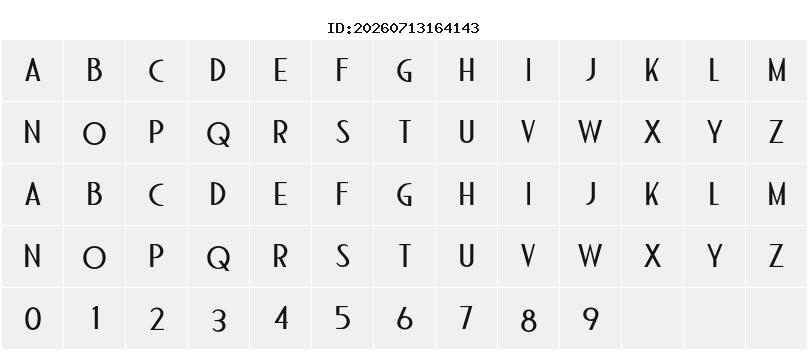
Bandoengsche DEMO Preview
• Font Name: Bandoengsche DEMO
• Designer: Gumpita Rahayu
About Bandoengsche DEMO.otf
Bandoengsche DEMO.otf is a modern, elegant sans-serif font designed for ultimate readability and visual harmony. Perfect for branding, headlines, web design, and print materials.